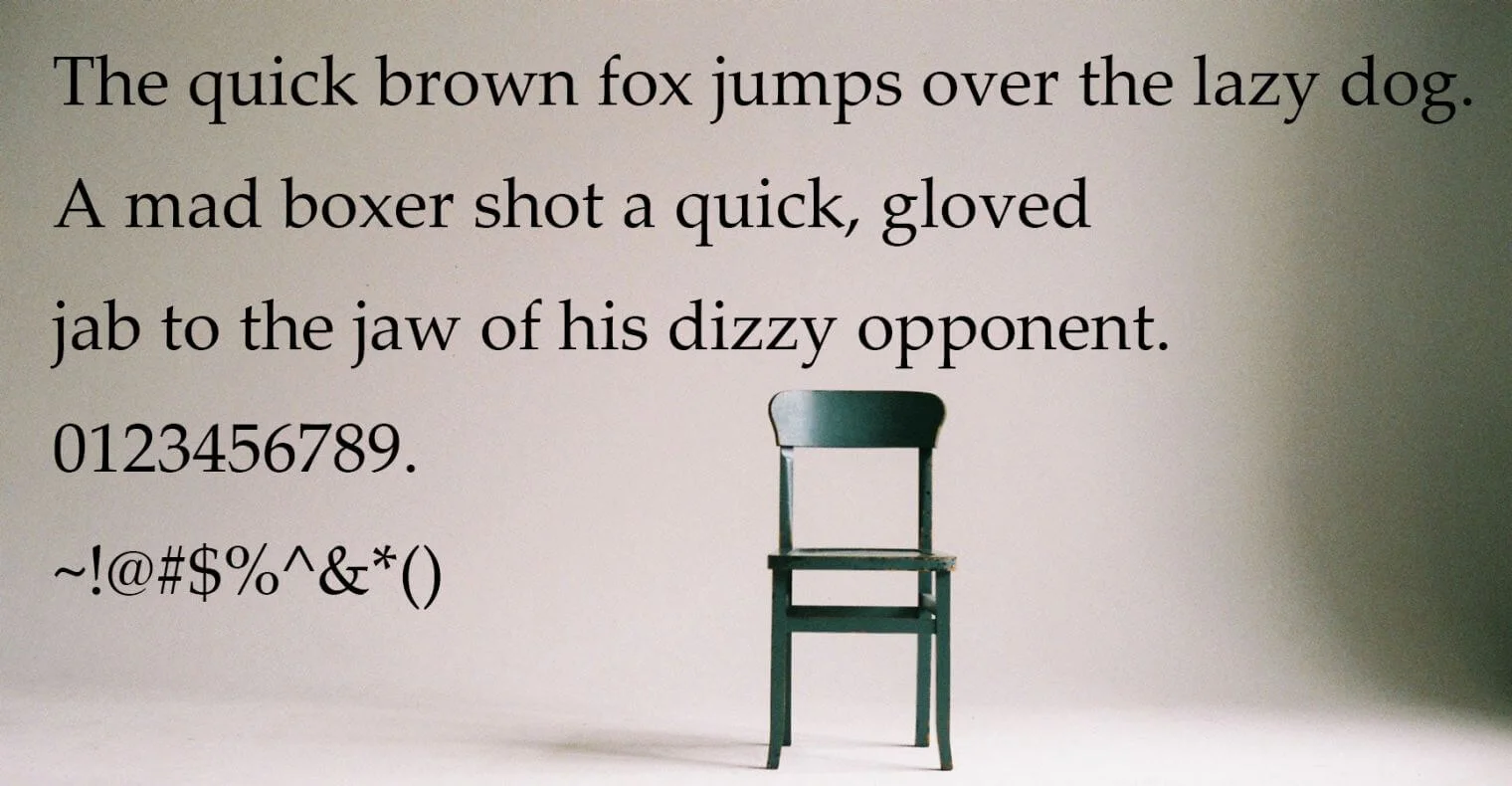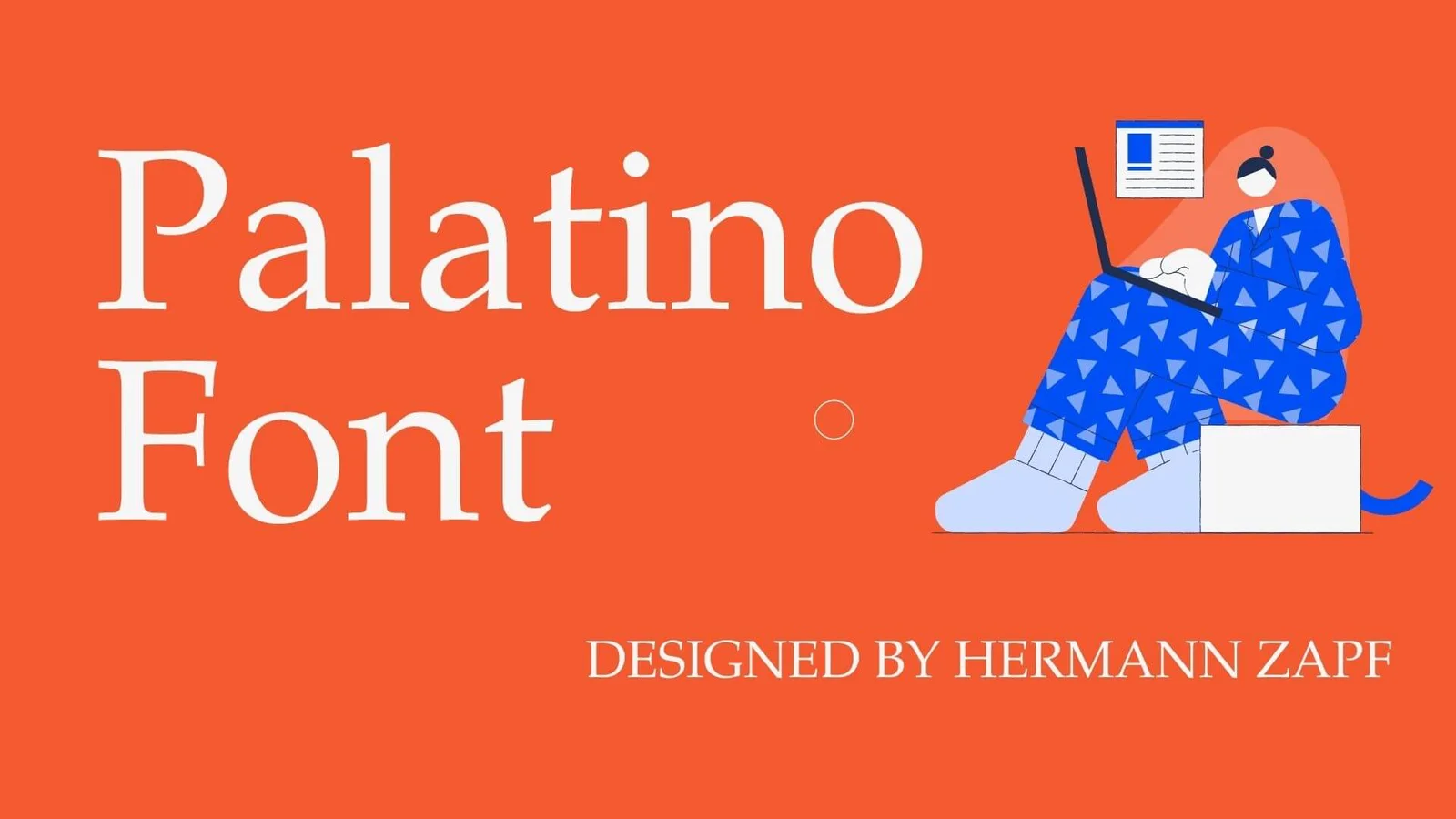
Palatino Font is a Serif typeface created by German typeface designer, Hermann Zapf in 1949. He was known for designing many notable fonts and did considerable work in graphic designing. The font was founded by a German Foundry, Stempel Type Foundry.
It is a humanist typeface which reflects the letters framed by an expansive nib pen. It comprises two variations including Palatino Nova, Platino Nivotype, Digitisations, Platino Arabic and Palatino Sans. The font has gained immense popularity after being used in body texts. It also won the Best Typeface award in 2007 and 2008.
Usage of Palatino Font
Platino font is known for having increased readability factor; hence it has been used in many places since its releases. Mainly it is seen for body texts and has an extended font family. After being used in many texts, it released multiple versions.
It is a profoundly practical typeface that can be utilized in any setting, for any reason. It’s broadly utilized as a corporate typeface, for publicizing features and text and for any other purpose. In short, it is a versatile typeface sued for different purposes.
What Is Platino Font Used For?
Platino font can be used for different purposes. However, it goes well with body texts, headlines, titles, advertising headlines, etc. Furthermore, the font can be used for display purposes, i.e. movies and series titles. It can also fit with the meaningful Itaki Font.
Is Platino the Right Font?
Platino has earned enormous acknowledgment after being used in many body texts. It increases the readability score and makes the design worth appreciating. It is a versatile typeface used in many places and goes well with many fonts.
Is Platino a System Font?
Which Font Makes the Best Pairing with Platino?
The Platino font goes best with Villa Feltrinelli, Jamie Smyth, Libre Baskerville etc.
Who Is the Designer of Platino Font?
Hermann Zapf designed this font in 1949; the font was released by a German foundry Stempel Type Foundry.